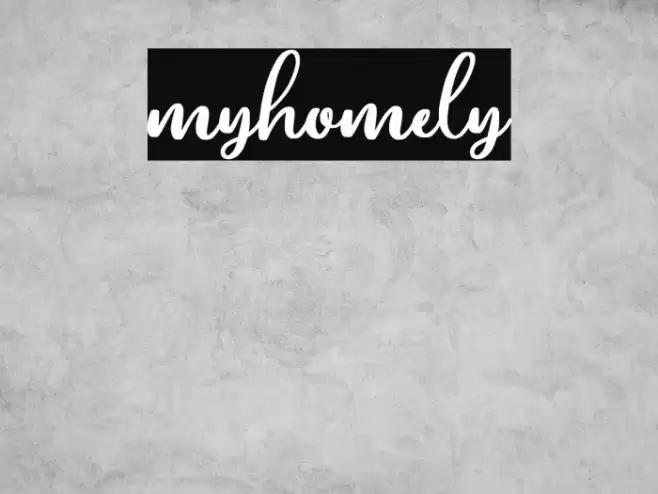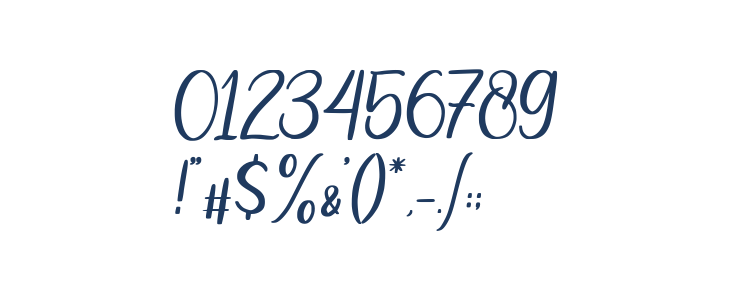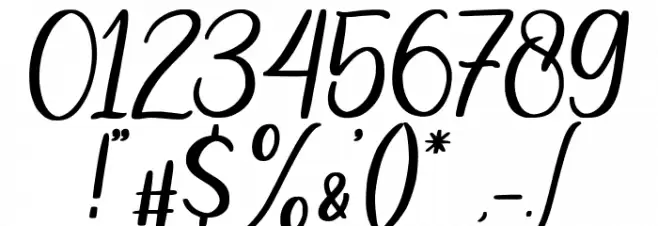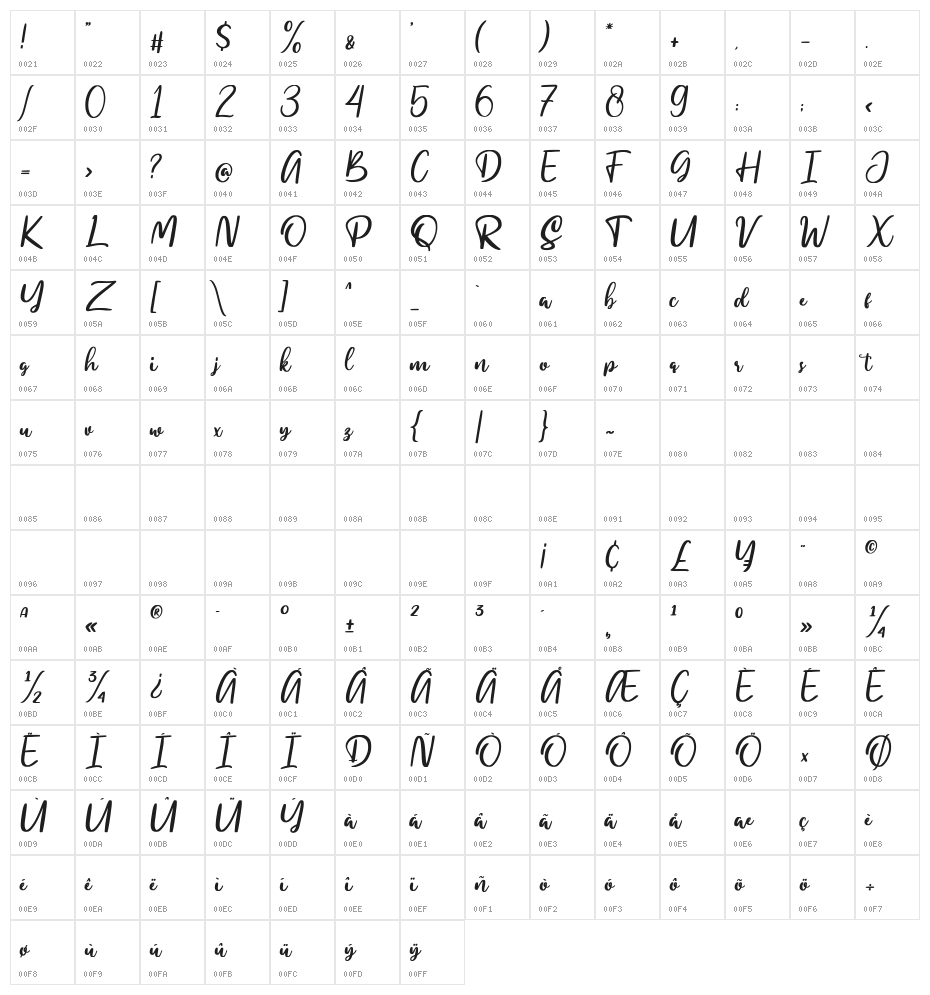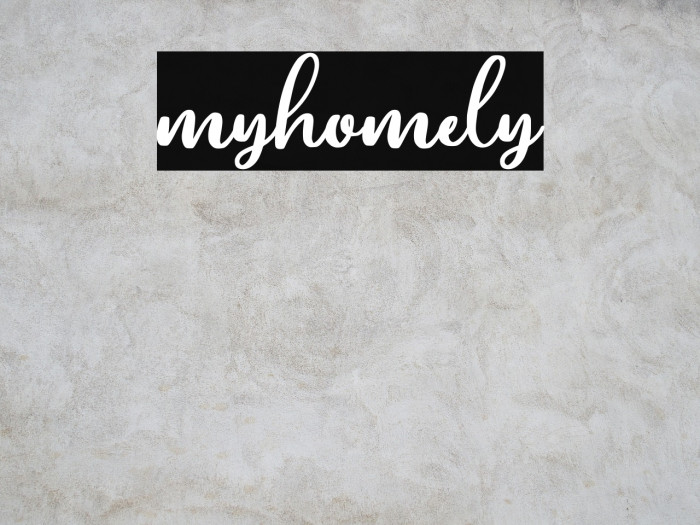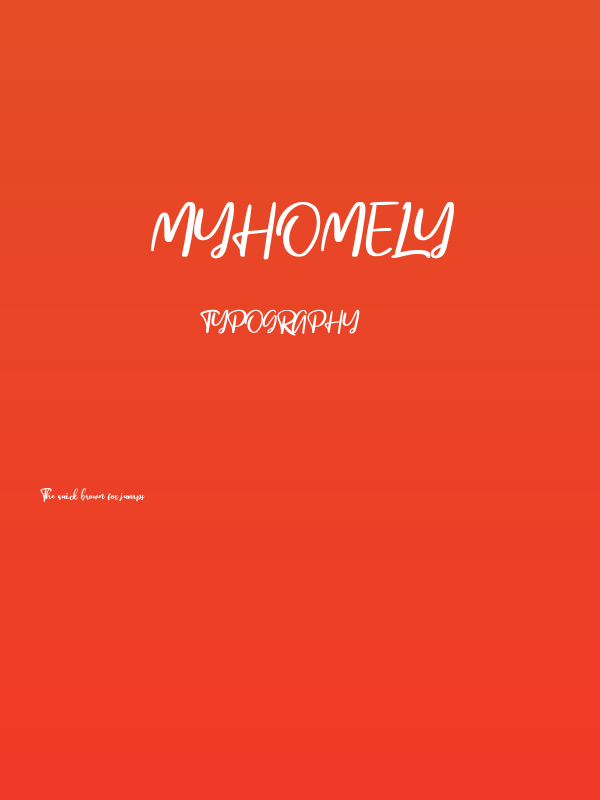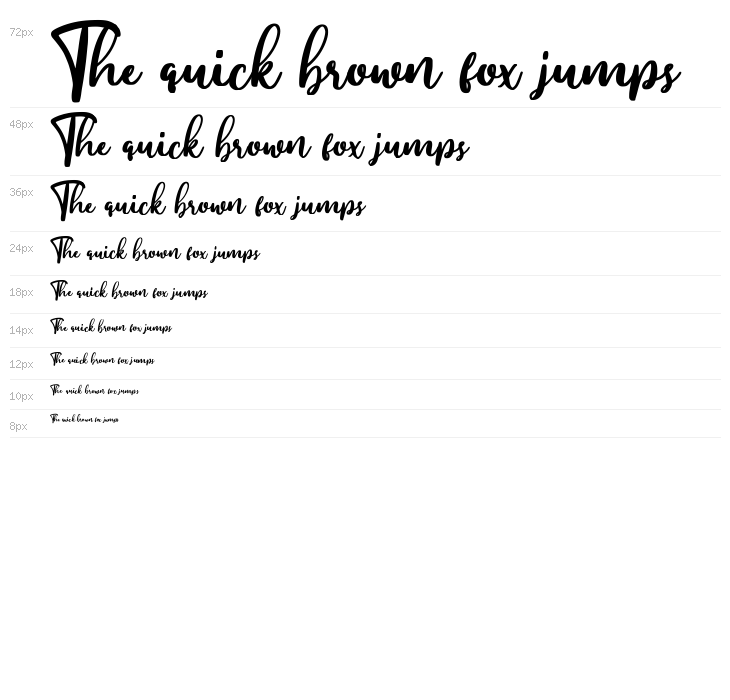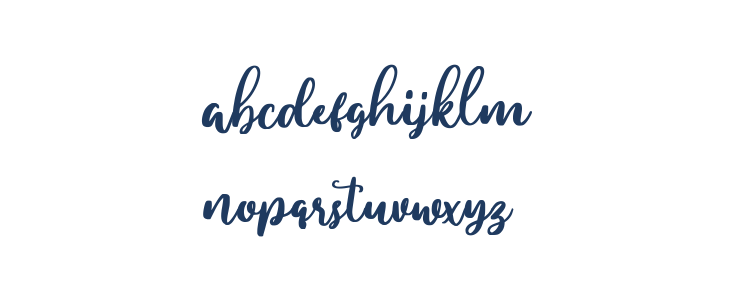
myhomely Font
myhomely Description
This font features a dynamic and flowing script style, characterized by its elegant and cursive letterforms. The uppercase letters exhibit a bold and confident presence with smooth curves and a slight slant, creating a sense of movement and grace. The lowercase letters maintain a cohesive flow, with each character seamlessly connecting to the next, enhancing the script's fluidity. The numerals are consistent with the script's style, offering a harmonious blend of curves and loops. Special characters are thoughtfully designed, maintaining the overall aesthetic and ensuring versatility in various design applications.
A dynamic and flowing script font with elegant, cursive letterforms from Uncategorized fonts.
- Proposed Projects: Ideal for wedding invitations, branding projects, greeting cards, and elegant packaging designs.
- Overall Style: Elegant
- Use Case: Logos, Invitations, Branding